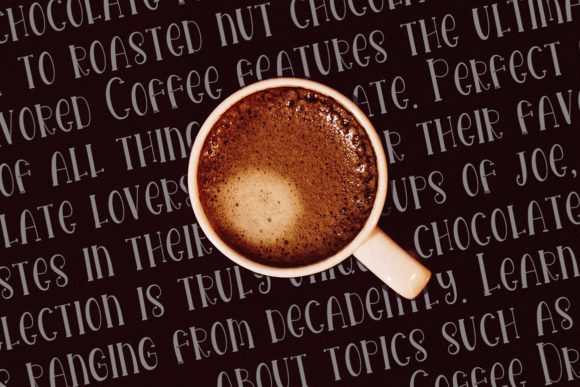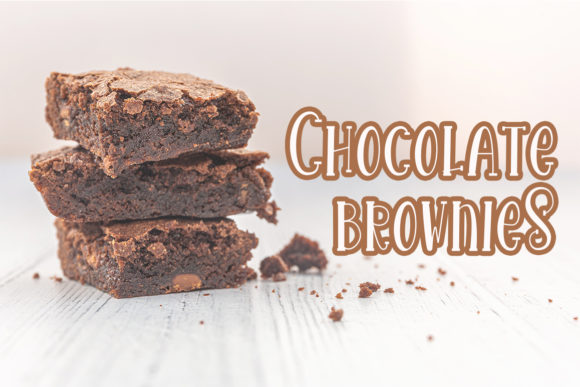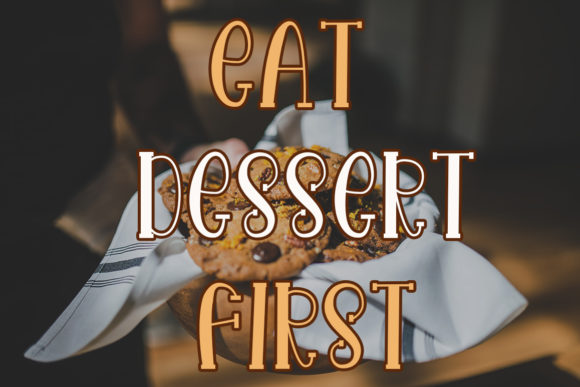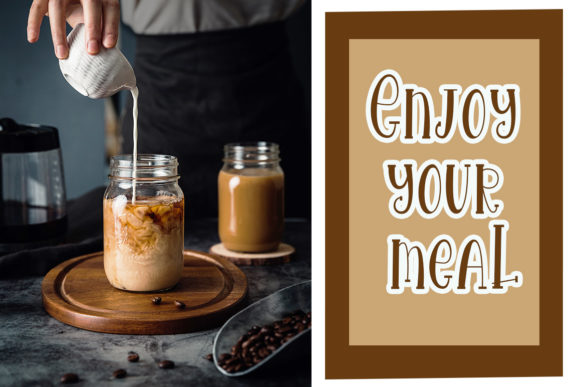
Brownies Chocolatos Font
About Brownies Chocolatos Font
Brownies Chocolatos is a sweet and friendly handwritten font. Its natural and unique style makes it incredibly fitting to a large pool of designs. The only limit is your imagination!